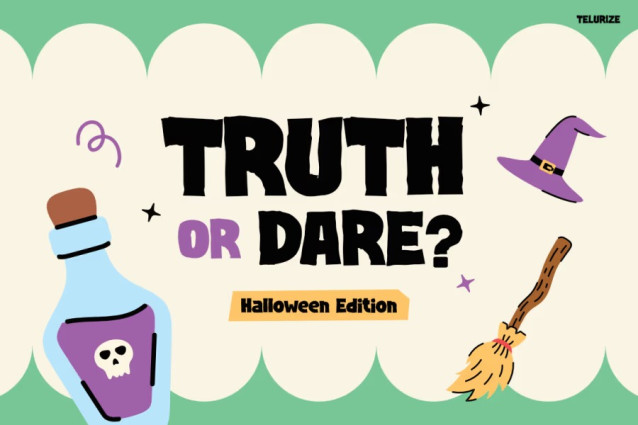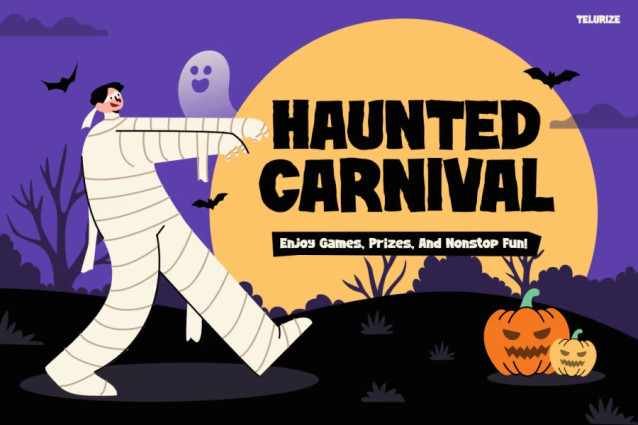
Telurize Font brings a fun mix of spooky charm and playful boldness. Its chunky letters and rounded edges create a cute horror style that feels exciting but still safe for kids. Moreover, the strong shapes help every word stand out clearly. Additionally, the soft details add warmth and personality, which makes the font feel lively and expressive. Because of this, TELURIZE becomes a great choice for designs that need a friendly spooky theme.
Furthermore, the font uses a clean and powerful structure. Each letter looks bold enough to grab attention. However, it stays simple, so your layouts never feel too heavy. Consequently, the font becomes ideal for posters, titles, and themed graphics. Its cute horror mood fits Halloween perfectly, but it also works well for fun projects throughout the year.
TELURIZE blends playful curves with spooky elements in a child-friendly way. Additionally, its thick strokes make the letters easy to pair with illustrations, icons, and cartoon characters. Because the glyphs stay consistent, the font looks neat and balanced across different layouts.
Moreover, the font works well in many sizes. Therefore, you can use it for large headlines or small labels without losing clarity. TELURIZE also supports bright colors and dark themes equally well. Meanwhile, its cheerful spooky style fits ideas like magic, monsters, and Halloween nights.
Furthermore, the friendly shaping makes spooky visuals fun instead of frightening. This helps children enjoy the theme with confidence. Consequently, TELURIZE becomes a strong choice for family events, school activities, and kids’ promotions.